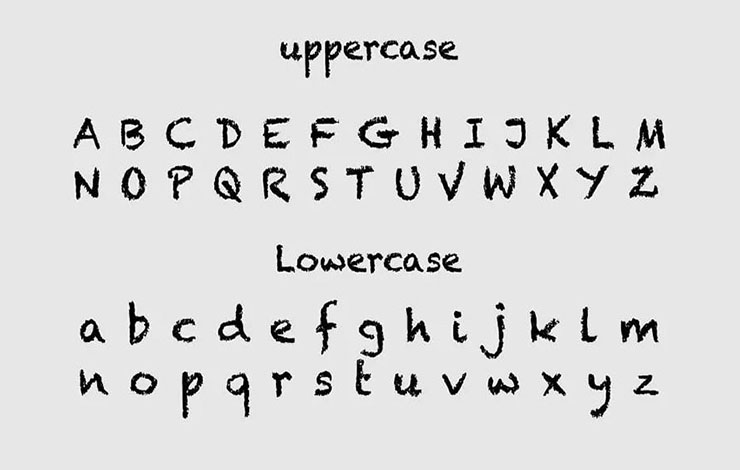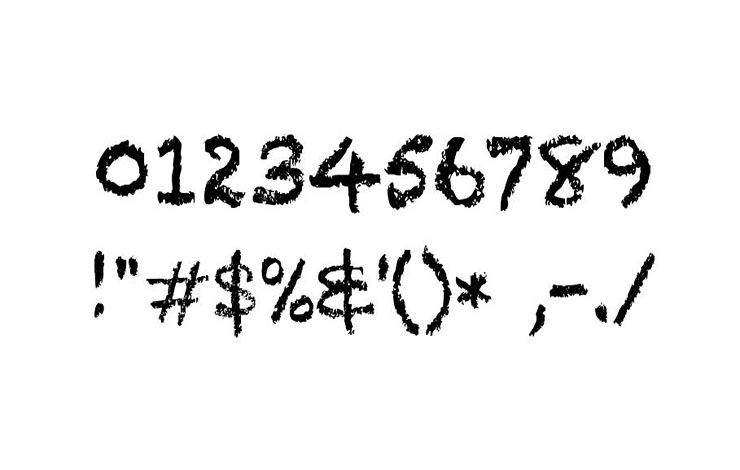
Chalkduster Font is a fancy display typeface that has a thick, rough, and highly legible look. Apple Computer, Inc. took charge of designing for the first time in 2008.
All the texture is designed by the handwritten chalk lettering. It has a unique personality in the letters that has a casual, rough edges, and mimicking look.
We highly recommend this font for cafe menus, signages, hoarding, logos, pouters, banners, video crafting, and other fun design projects. It is very pleasant and it looks great in any size.
It is a versatile typeface that can be used for a variety of purposes for book covers, unique emblems, game graphics, product designs, special event cards, product packaging, product designs, special event cards, gaming, digital artwork, social media banners, flyers, brochures, signs, movie posters, special quotes, and so on.
What is a Chalkduster Font?
Chalkduster Font is a fancy display typeface that has a thick, rough, and highly legible look. Apple Computer, Inc. took charge of designing for the first time in 2008.